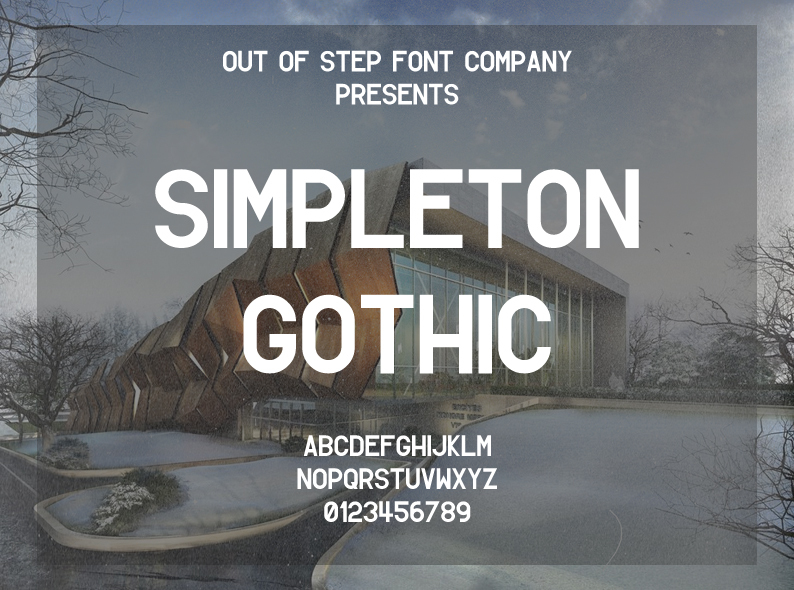
Simpleton Gothic Regular
Simpleton Gothic is a garish neo-grotesque gothic sans serif. The typeface is proportioned to be the exact opposite of elegance.